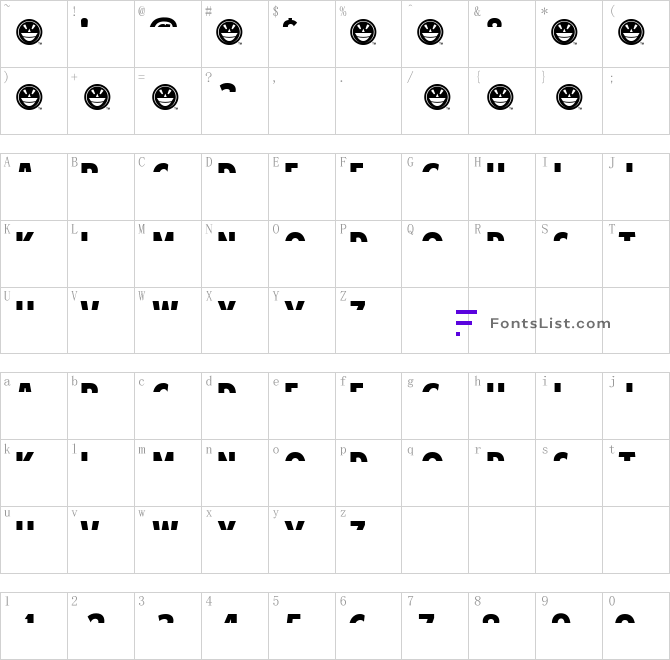
- Font Name:American Purpose STRIPE 1
American-Purpose-STRIPE-1-Normal-Italic.ttf is a very beautiful artistic font, American-Purpose-STRIPE-1-Normal-Italic.ttf is widely used in the design and printing of various books and pictures,American-Purpose-STRIPE-1-Normal-Italic.ttf has a strong visual impact,American-Purpose-STRIPE-1-Normal-Italic.ttf is a commonly used font in newspapers, magazines and books, and is used in posters, e-commerce Poster design, store design, logo design, font design and other fields.American-Purpose-STRIPE-1-Normal-Italic.